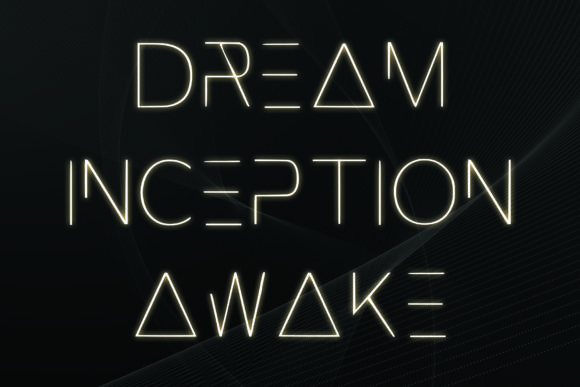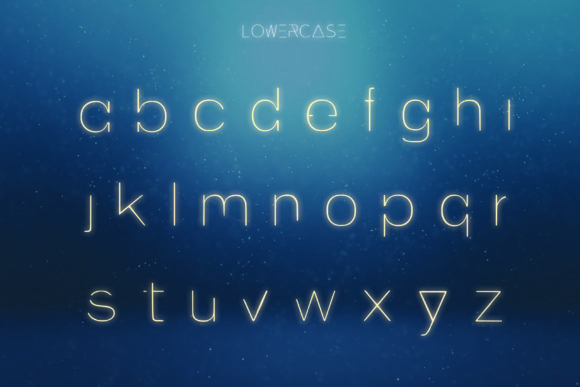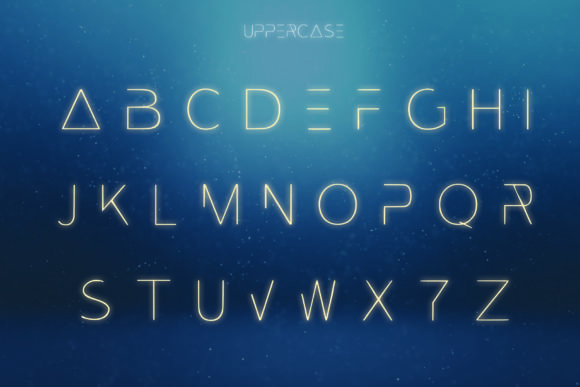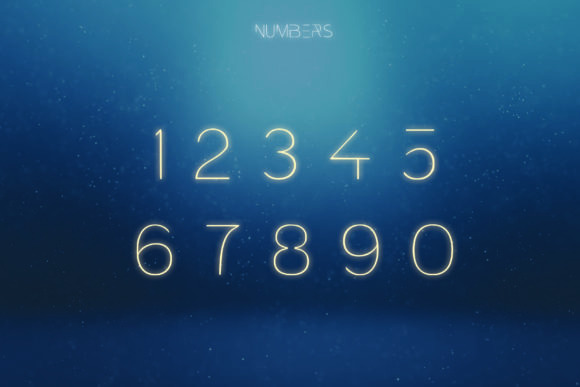
The Quest for the Perfect Font: Discovering Exoplanet
I still remember the frustration of working on a project, pouring my heart and soul into every detail, only to be held back by one thing: the font. It was as if I was searching for a needle in a haystack, scrolling through endless pages of Google Fonts, trying to find that one perfect match. My client wanted something futuristic, something that would make their brand stand out in a crowded galaxy. And then, I stumbled upon Exoplanet – a unique and creative display font that had been passionately handcrafted. I fell in love with its futuristic look & feel! ✨
An Honest Review of Exoplanet Font
- ✨ Unique and creative design that’s out of this world
- ✅ Highly legible, even at smaller sizes
- 🔥 Perfect for display text, titles, and headings
- 🎨 Great for branding, packaging, and advertising
While Exoplanet is an amazing font, there are a few things to keep in mind: 🤔
- ⚠️ Limited use for body text, as it may be too ornate for longer blocks of text
- ⚠️ Some characters may not work well at very small sizes, so use discretion when scaling down
The Backstory of Exoplanet Font
Exoplanet was designed by a team of passionate typographers who wanted to create a font that would transport users to another world. Inspired by the mysteries of the universe, they poured their hearts and souls into crafting a font that’s both futuristic and beautiful. The result is a font that’s perfect for designers, crafters, and creative hobbyists who want to add a touch of otherworldliness to their projects.
Q: What is Exoplanet font?
A: Exoplanet is a unique and creative display font that has been passionately handcrafted. It’s perfect for display text, titles, and headings.